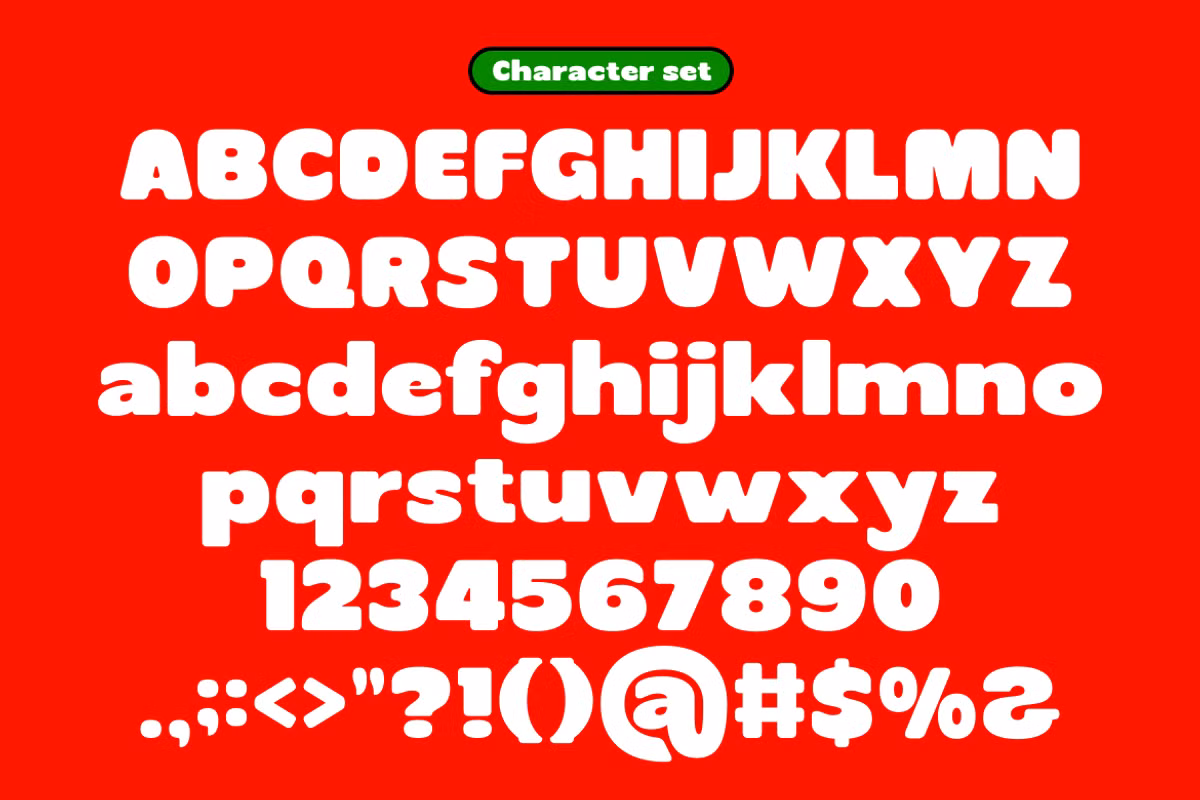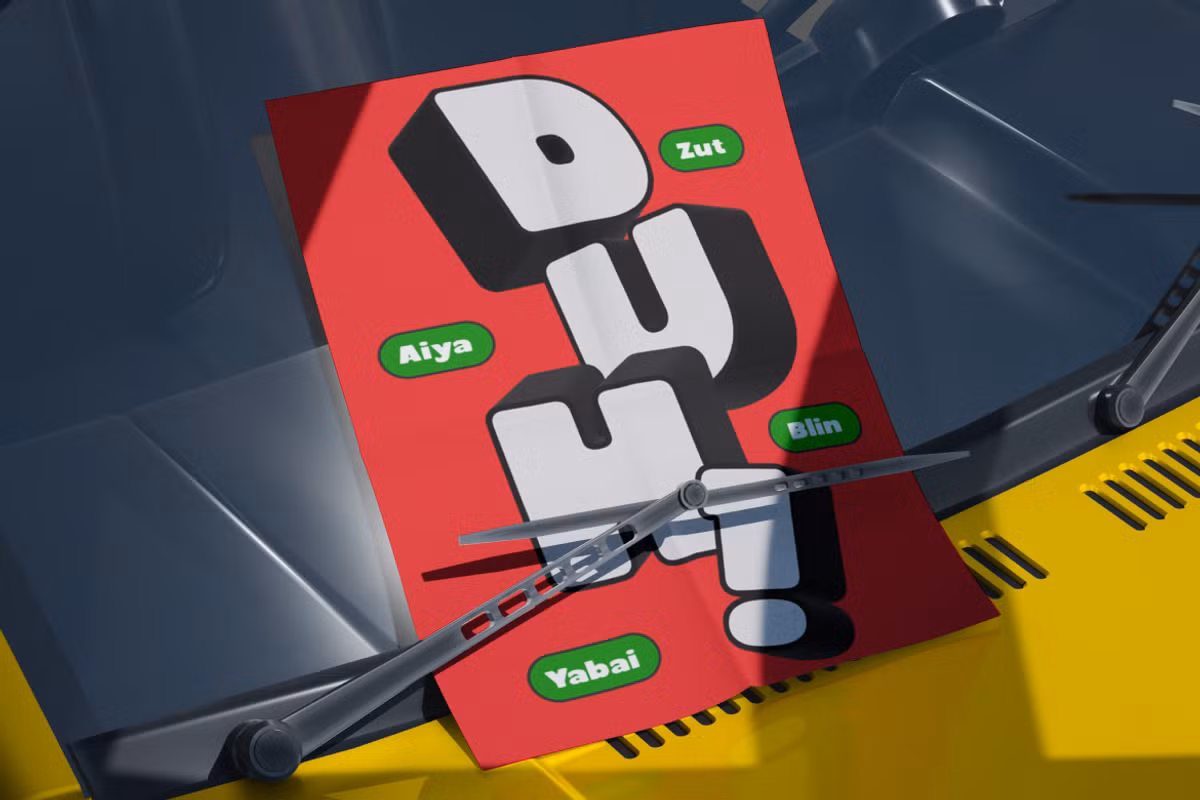
Thumpa Bold Sans Serif Font: Playful Typeface for Impactful Design
Thumpa Bold Sans Serif Font
Thumpa Bold Sans Serif Font: Playful Typeface for Impactful Design
Introduction to Thumpa Bold Sans Serif Font
Thumpa is a really cool font that’s great for making a big impact. It’s a sans serif font, which means it doesn’t have any of those fancy extra lines at the ends of the letters. What makes Thumpa special is its thick, chunky letters and soft, rounded corners – it’s like a big, friendly bear of a font. When you use Thumpa in a design, it really stands out and grabs your attention.
The curves of the letters are nice and smooth, and the thick lines make it feel strong and confident. Overall, Thumpa is a great choice for anyone who wants to add some energy and fun to their design projects. It’s perfect for things like posters, logos, and headings – anywhere you want to make a big splash and get people’s attention.
Visual representation of Thumpa Bold Sans Serif Font
An example of Thumpa font in design applications.
Design Style and Features of Thumpa
The Thumpa font really stands out with its bold and chunky design, using strong geometric shapes that are rounded and easy to read. This makes the text more fun and playful, while also being simple to understand. The curved edges of the font are soft and smooth, which helps to create a friendly and welcoming feel.
This makes the Thumpa font a great choice for brands that want to seem warm and enthusiastic, and really connect with their audience. With its unique blend of boldness and playfulness, the Thumpa font is perfect for adding some personality to your text and making it more engaging.
• Chunky Bold Construction: The robust letterforms ensure that Thumpa commands attention, making it ideal for headlines and promotional materials.
• Soft Curved Edges: These rounded characteristics encourage a welcoming feel, perfect for family-oriented brands and playful themes.
• Thick, Uniform Strokes: This feature maximizes visual impact and clarity, whether the font is used in print or digital formats.
Thumpa’s fun shape makes it stand out, which is why it’s great for big, eye-catching text. Its playful look gives it a lively feel that’s perfect for making a statement. Generous spacing is optimized for attention-grabbing layouts, ensuring that your message is clear and engaging.
Close-up of Thumpa font showing its features
A close-up view of Thumpa’s unique features.
Character Sets and Versatility
Thumpa has a big collection of characters, including capital and small letters, numbers, and punctuation marks. This makes it really useful for designers, as they can use it for lots of different projects, like making graphics for social media, designing packaging for products, or creating eye-catching posters.
With Thumpa, you’ve got all the characters you need right at your fingertips, which is super convenient. It’s a great tool to have in your design kit, and it can help you create all sorts of cool things. Whether you’re working on a big project or just a small one, Thumpa’s got you covered with its wide range of characters.
Best Use Cases for Thumpa
Thumpa really stands out with its bold personality and the way it grabs your attention. This makes it a great fit for certain situations where you need to make a statement.
• Food and Beverage Branding: Thumpa’s cheerful and energetic vibe makes it perfect for food-related brands, from burger shops to snack packaging.
• Children’s Products: The playful nature of the font aligns well with products aimed at children, helping to create an engaging brand identity.
• Posters and Promotional Materials: Utilize Thumpa for eye-catching poster designs that demand attention and convey excitement.
• Social Media Promotions: The font’s ability to stand out makes it an excellent choice for social media graphics and advertising campaigns.
• YouTube Thumbnails: Grab viewers’ attention with bold and vibrant thumbnails that reflect the fun and energetic tone of your content.
Examples of Thumpa font in various use cases
Thumpa font showcased in various design projects.
Pairing Suggestions for Thumpa
When designing, choosing the right font combinations is crucial. Thumpa pairs well with many other fonts, which brings out its fun and lively feel while keeping everything looking good. Here are a few ideas for pairing fonts with Thumpa:
• Thumpa and Lora: Pairing the boldness of Thumpa with Lora’s elegant serif features can create a striking contrast, perfect for modern branding.
• Thumpa and Montserrat: This combination brings together the playful nature of Thumpa with Montserrat’s clean lines for a contemporary look.
• Thumpa and Raleway: The light and airy feel of Raleway complements the boldness of Thumpa, creating a dynamic visual hierarchy.
It also comes with a lot of different characters, so you can use it to spell out all sorts of words and phrases. Plus, it works well with lots of different design programs, which makes it easy to use. So, if you want to add a bit of fun and energy to your designs, Thumpa is a great choice. It’s perfect for making headlines that really pop and grab people’s attention. With Thumpa, you can create designs that are bold, playful, and really engaging. It’s a great way to make your projects stand out and have some fun with your designs.